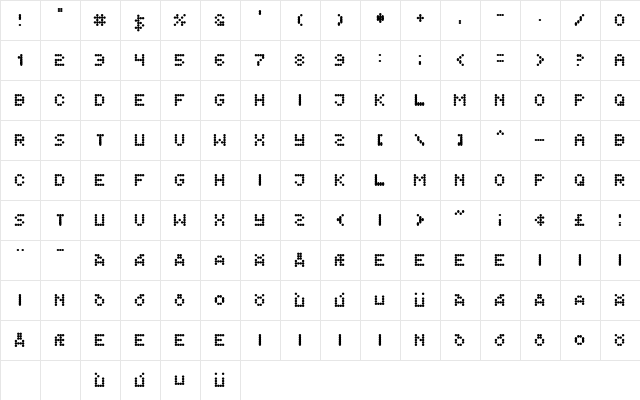
Flytningar Regular
Design Context for Flytningar Typeface
Flytningar takes a measured approach to typography — its balanced proportions and neutral character make it a reliable workhorse for both digital and print work.
Pro Tip: Pair Flytningar with a font of contrasting weight or personality to build a more expressive typographic hierarchy.